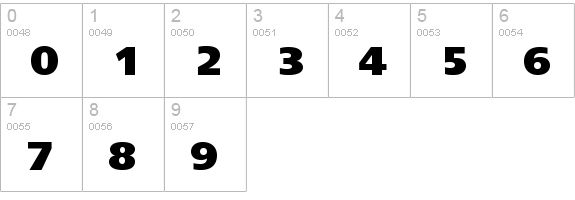
PT FreeSet Black Cyrillic is a maximum-weight, dramatic variant in the PT typeface family \xE2\x80\x94 well suited to maximum-impact headlines, posters, and packaging.
PT FreeSet Black Cyrillic font is a bold and eye-catching typeface that exudes a sense of strength and modernity. With its sleek design and sharp edges, this font is perfect for making a statement in headlines, posters, and other design projects that require a strong visual impact. The Cyrillic characters add a touch of sophistication and elegance to the overall look of the font. Furthermore, PT FreeSet Black Cyrillic font is freely available to download at FontsMarket.com, making it accessible to designers and creatives looking to add a touch of boldness to their projects without breaking the bank. Whether you're working on a branding project, a magazine layout, or a website design, this font is sure to make a lasting impression with its unique style and versatility.